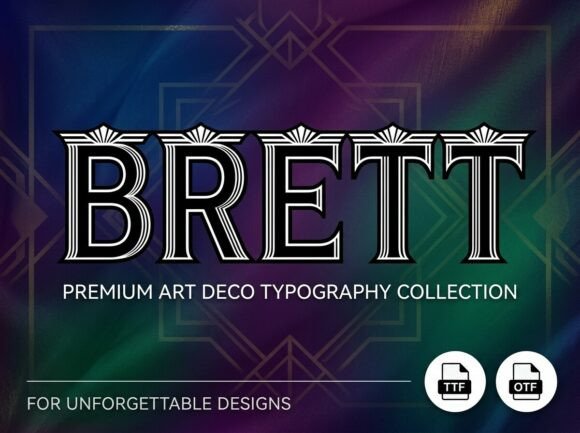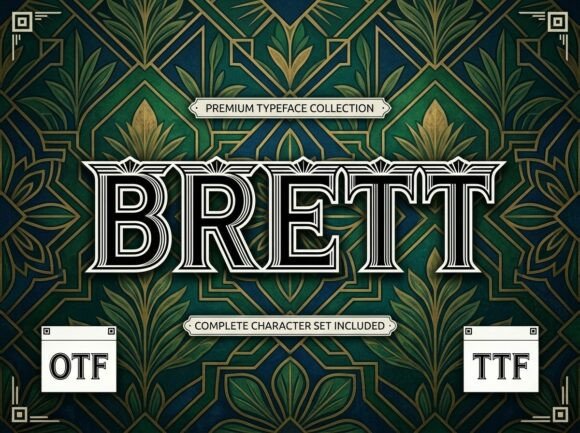
The Ultimate Display Font: A Deep Dive into Brett Font
Have you ever been working on a design project, pouring your heart and soul into it, only to hit a roadblock when it comes to finding the perfect font? I know I have. It was a few years ago when I was tasked with creating a bold, eye-catching logo for a client’s new business. I scoured the internet for hours, trying out font after font, but nothing seemed quite right. That was until I stumbled upon Brett Font. This stunning decorative display font has been a game-changer for me, and I’m excited to share my experience with you.
First Impressions: What I Love About Brett Font
Brett Font is a true showstopper. With its unique artistic elements and strong visual personality, it’s perfect for creators who want to break away from the ordinary. Here are just a few things that I love about this font:
- ✨ Unique and artistic: Each letter is a work of art, making it perfect for bold headlines, artistic logos, and creative packaging.
- ✅ Versatile: Despite being a decorative font, Brett Font maintains a professional and polished finish, making it suitable for a wide range of design projects.
The Not-So-Perfect: A Few Quirks to Consider
While Brett Font is an amazing font, it’s not without its limitations. Here are a few things to keep in mind:
- ⚠️ All-caps only: This font is specifically designed for high-impact headlines, logos, and decorative initials, which means it only includes uppercase letters.
- 🤔 Limited use cases: While Brett Font is incredibly versatile, it’s not suitable for body text or long-form writing. It’s best used sparingly for emphasis and impact.
The Story Behind Brett Font
Brett Font was designed with the intention of creating a unique and eye-catching display font. The designer wanted to create a font that would stand out from the crowd and add a touch of personality to any design project. With its bold and artistic elements, Brett Font is sure to make a statement.
| Q: Is Brett Font suitable for body text? | A: No, Brett Font is best used for headlines, titles, and decorative elements. |
| Q: Does Brett Font include lowercase letters? | A: No, Brett Font is an all-caps font and does not include lowercase letters. |